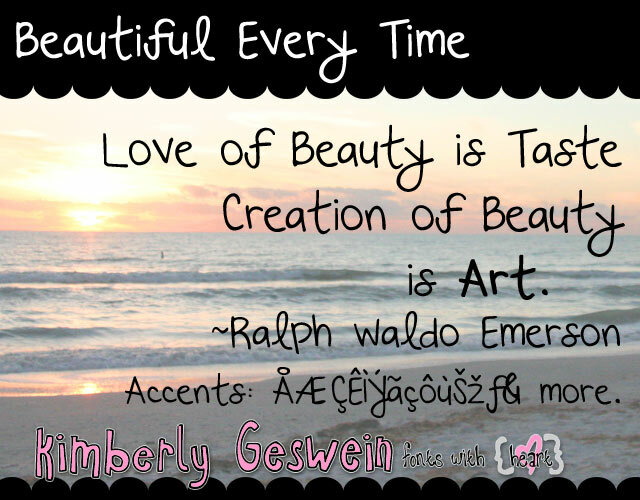
Beautiful Every Time by Kimberly Geswein is a free handwritten font with tall, loosely drawn letters and an easygoing upright stance. Uneven stroke widths, open shapes, and gently wandering forms preserve the lively quality of lettering written quickly with a broad marker.
Cheerful everyday themes suit its personal appearance, especially in greeting cards, classroom materials, and craft packaging. It also has the warmth needed for family event invitations. The informal strokes connect these uses to notes, labels, and handmade decorations rather than formal penmanship, making the font especially fitting for projects aimed at children, parents, and hobby makers.